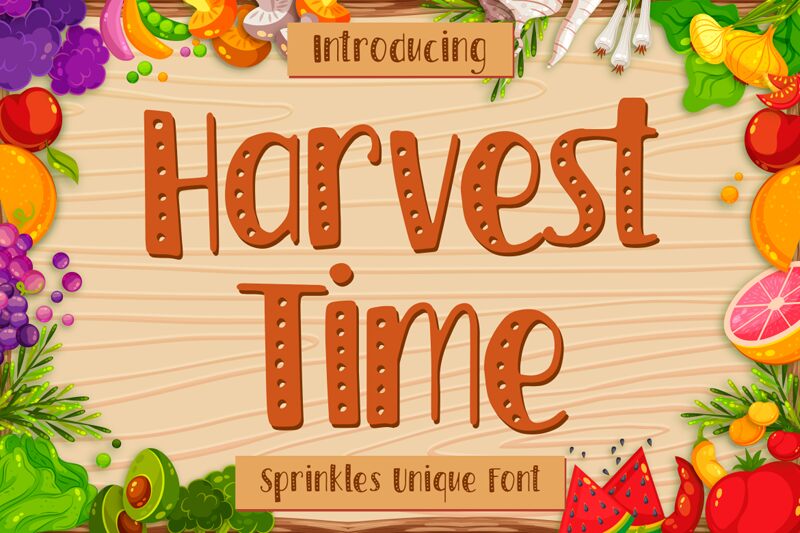
Harvest Time is a decorative display font designed by typefactory. It is perfect for projects that need an eye-catching, unique touch such as logos, posters and greeting cards. Make your project stand out with Harvest Time!
Harvest Time is sprinkles font.
This whimsical hand-crafted font sports sprinkles throughout.
Get inspired by its joyful look!